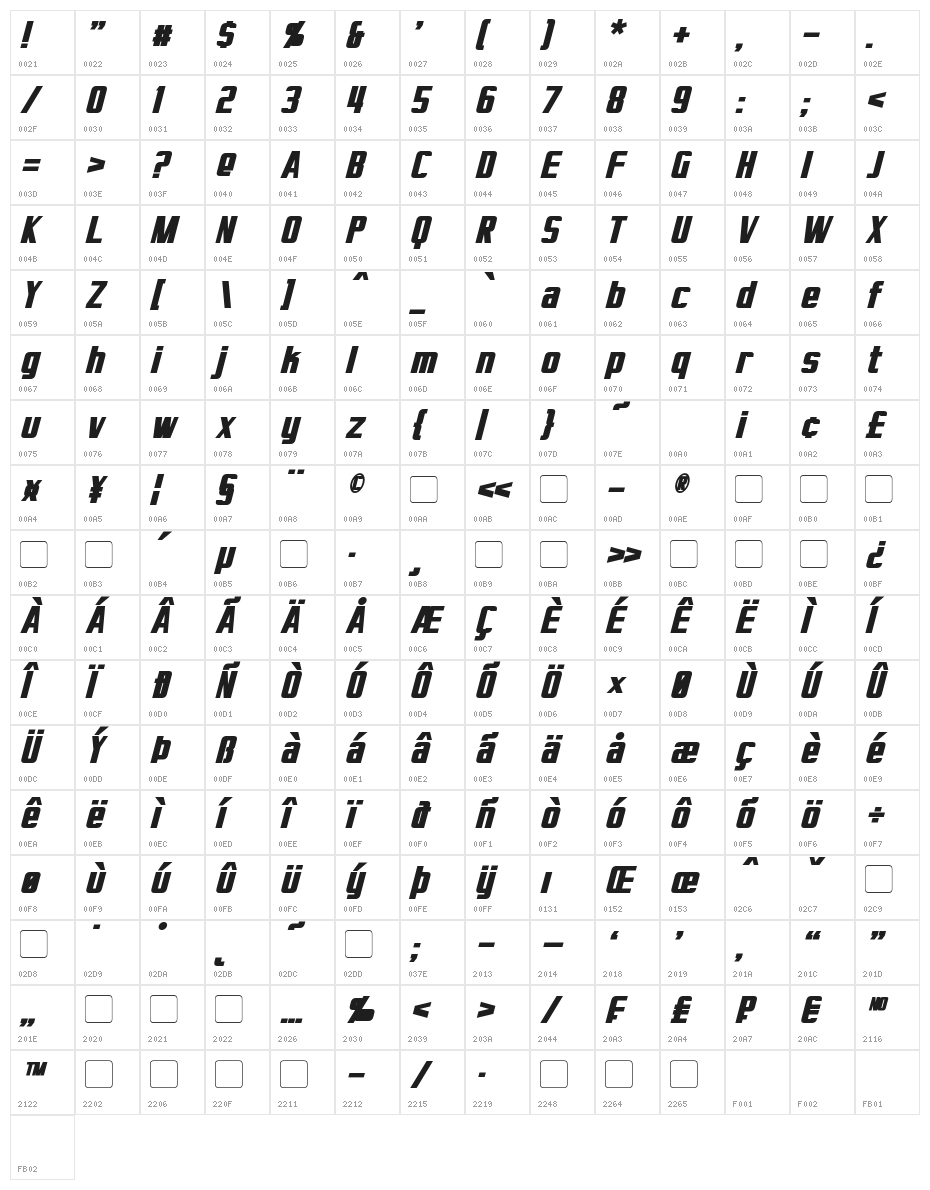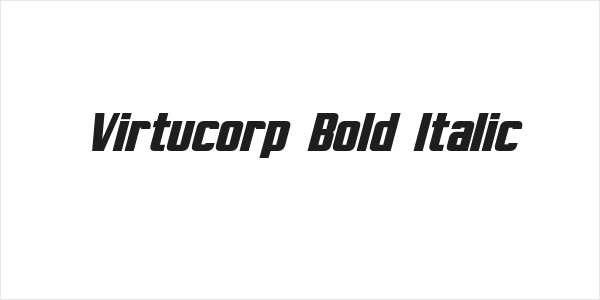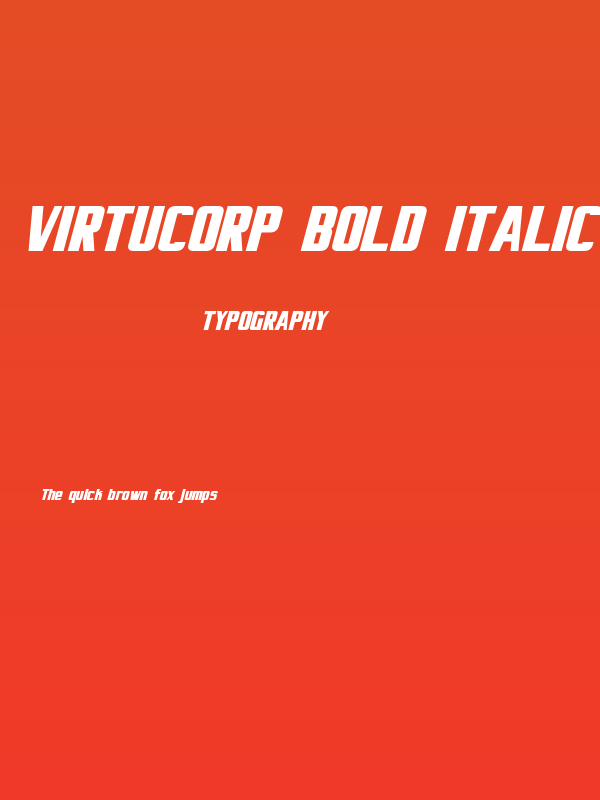
Virtucorp Bold Italic Font
Virtucorp Bold Italic Description
This font features a bold and italicized style, characterized by strong, angular lines and a dynamic slant that conveys a sense of motion and energy. The uppercase and lowercase letters maintain a consistent weight, emphasizing their boldness. The numerals are equally robust, ensuring readability and impact. Special characters are designed with the same bold and slanted characteristics, making them stand out. The overall design is modern and assertive, suitable for projects that require a strong visual presence.
| Proposed Projects | Ideal for sports branding, dynamic posters, and modern advertising campaigns. |